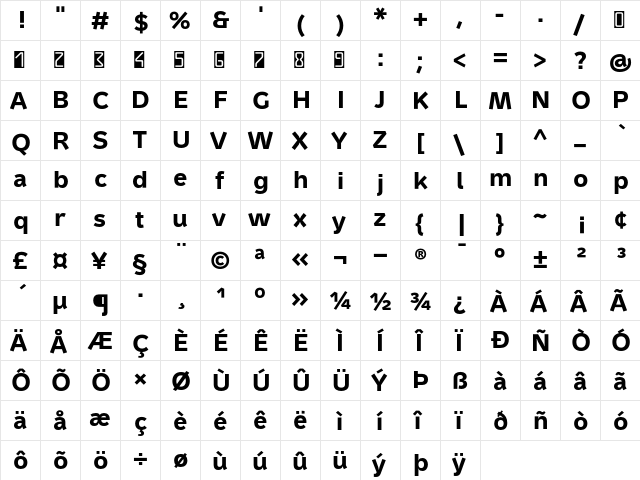
MetronDigita Pro Bold
| Foundry | Rathousky, Storm & Pistora |
| Designer | Jiri Rathousky, Frantisek Storm, Marek Pistora |
Design Context for MetronDigita Pro Typeface
MetronDigita Pro channels digital-age aesthetics through its sharp, structured letterforms — ideal for brands that want to signal innovation. Its bold stroke weight gives it real presence on the page.